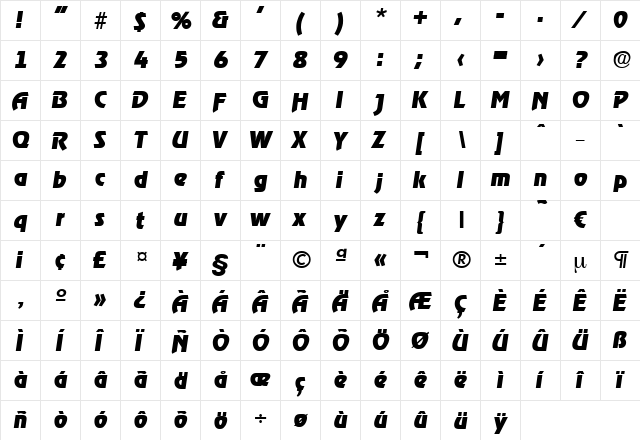
Ragtime-ExtraBoldIta Regular
Design Context for Ragtime-ExtraBoldIta Typeface
Ragtime-ExtraBoldIta takes a measured approach to typography — its balanced proportions and neutral character make it a reliable workhorse for both digital and print work. The heavy weight commands attention and anchors typographic hierarchies.